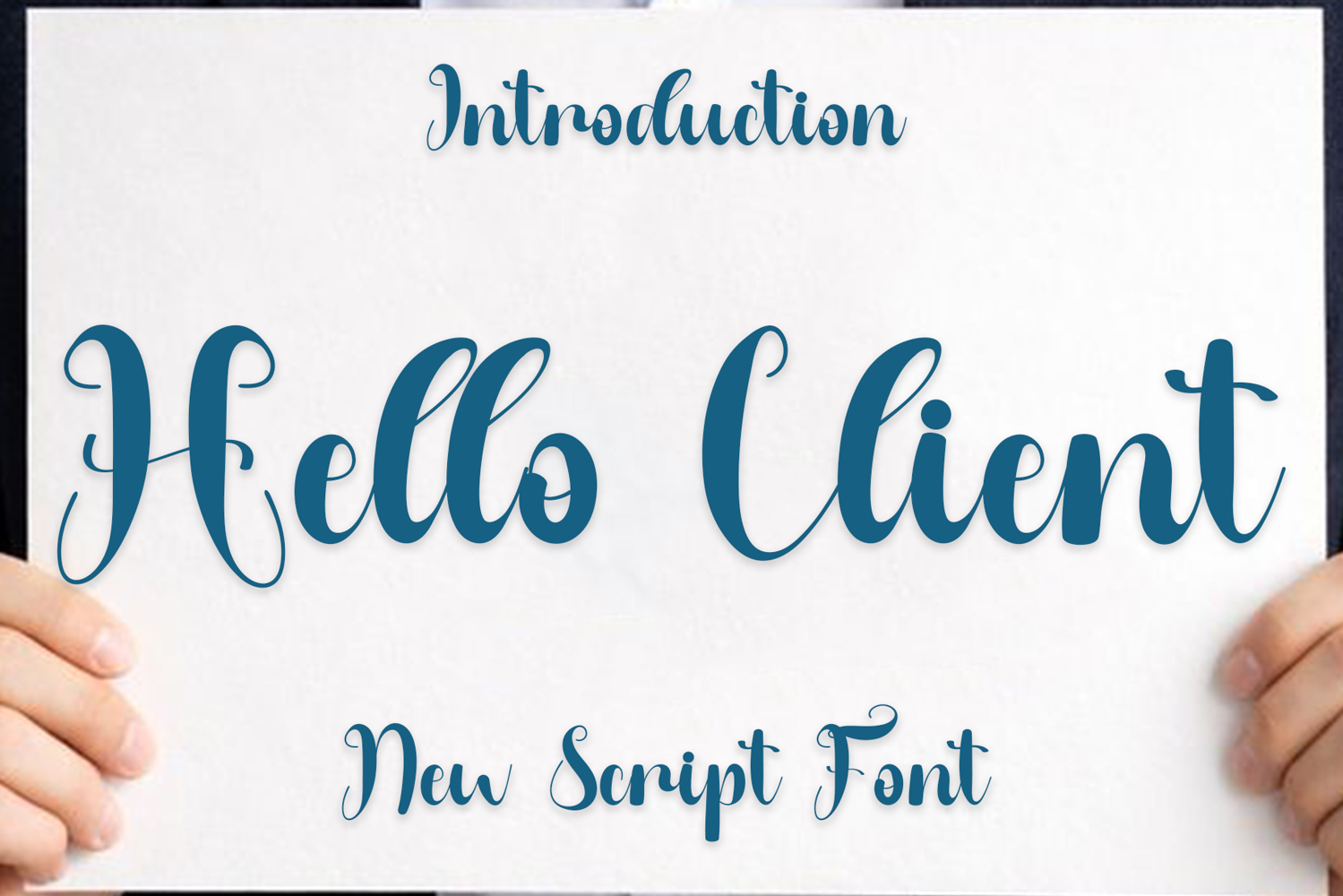
Hello Client
Hello Client is a beautiful and eye-catching font designed with a soft, unique touch. Its distinctive strokes give it a special character, making it meaningful and versatile for future use. With various characters, it’s perfect for design projects, crafts, and other creative works.